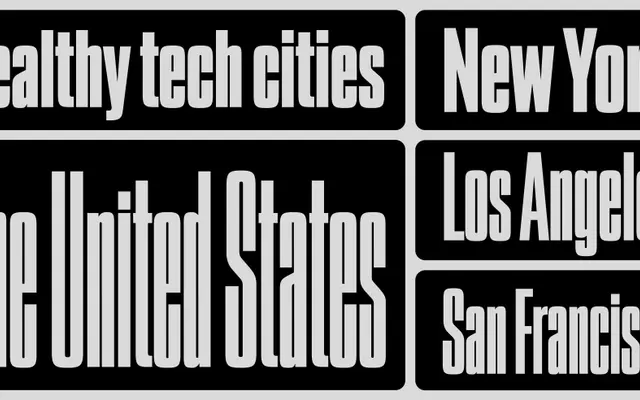
Compressium
A seven-weight ultra-condensed display family built around squared curves and a compressed rhythm designed for strong typographic impact.
Evolved from a single distinctive weight that was vertically scaled and then recompressed to its original height, Compressium achieves an extreme condensation across seven styles from One through Seven. Squared curves reinforce the tight white-space rhythm throughout, making the family well-suited to headlines, posters and branding contexts that demand visual weight at large sizes. All seven static fonts are available individually or as part of a variable font that spans the full range.
Compressium is an ultra-condensed display family derived by vertically scaling and recompressing an existing weight, with squared curves reinforcing its compact, high-impact character. It fits squarely in the display category given its extreme condensation and seven distinct weight grades.